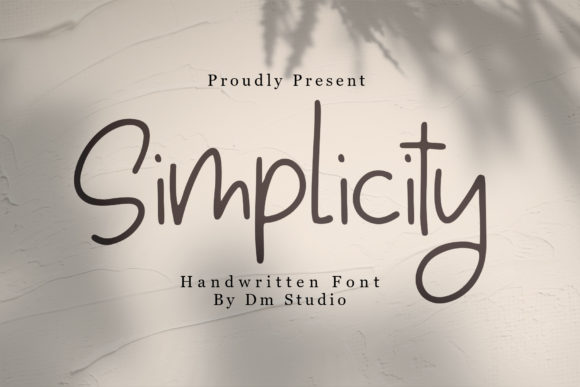
In a world where uniqueness and elegance intertwine, Simplicity awaits, ready to bestow your jewelry website with an air of sophistication. An exquisite handwritten script font handcrafted to perfection, Simplicity captivates with its precise curves and distinctive glyphs, promising to leave a lasting impression on your website visitors.
Unleash the boundless creativity that dwells within you as you integrate Simplicity into your website's design. Behold the allure of its sweeping ascenders and graceful descenders, harmonizing perfectly to create an aura of timeless beauty. Each meticulously crafted letter exudes a sense of delicate balance, showcasing the utmost attention to detail that went into its creation.
Immerse yourself in the boundless versatility of Simplicity, a font that flawlessly adapts to diverse design aesthetics. Envision the captivating allure it will bring to your jewelry product descriptions, adding a touch of elegance to each piece. Witness the transformation of your website's imagery as Simplicity weaves its magic, enhancing photos and capturing the essence of your products with its captivating presence.
Simplicity is not merely a font; it's an experience that transcends the boundaries of ordinary typography. It is an invitation to embark on a journey of creative expression, allowing you to unveil the hidden potential of your jewelry website. Embrace Simplicity and allow its captivating charm to weave its magic, leaving an unforgettable impression on every visitor who graces your digital doors. Let their eyes dance along the intricate strokes and marvel at the exquisite details that set Simplicity apart from the mundane.
With Simplicity, you'll unlock a world of possibilities, transforming your website into a visual masterpiece that reflects your unwavering dedication to excellence and craftsmanship. Elevate your jewelry brand to new heights of sophistication and watch as your sales soar. Embrace the power of Simplicity and let your creativity shine, leaving a lasting legacy of beauty and elegance in the digital realm.